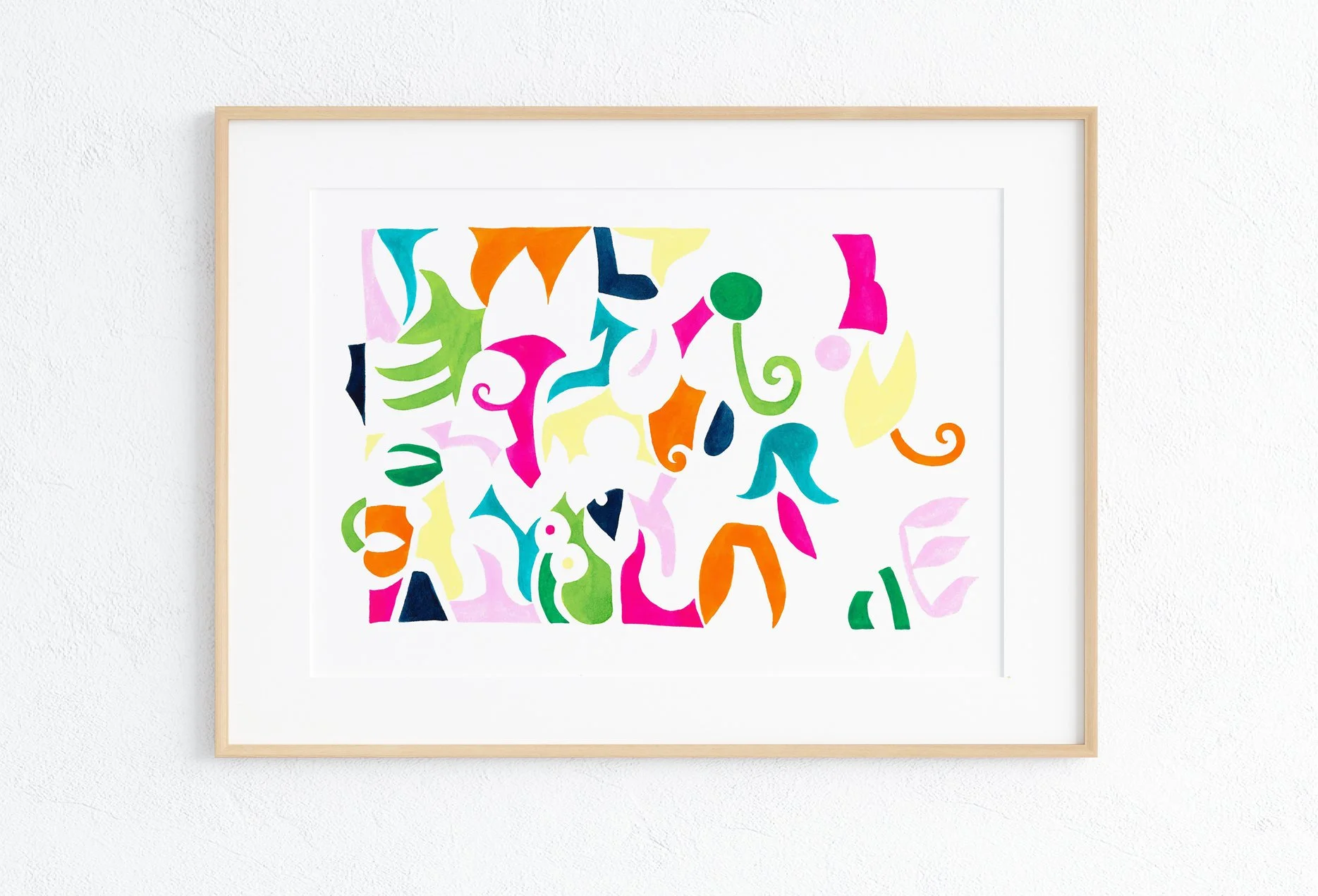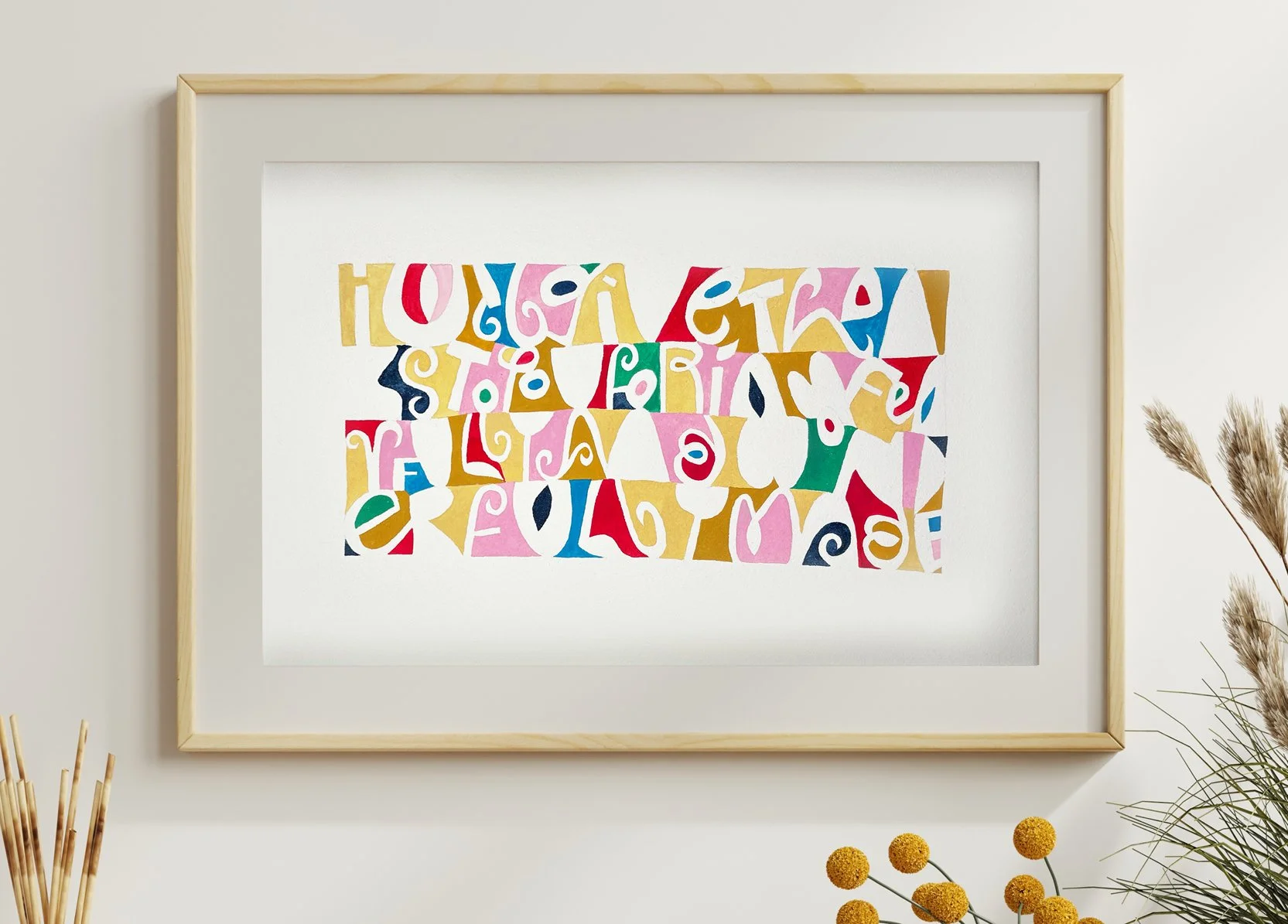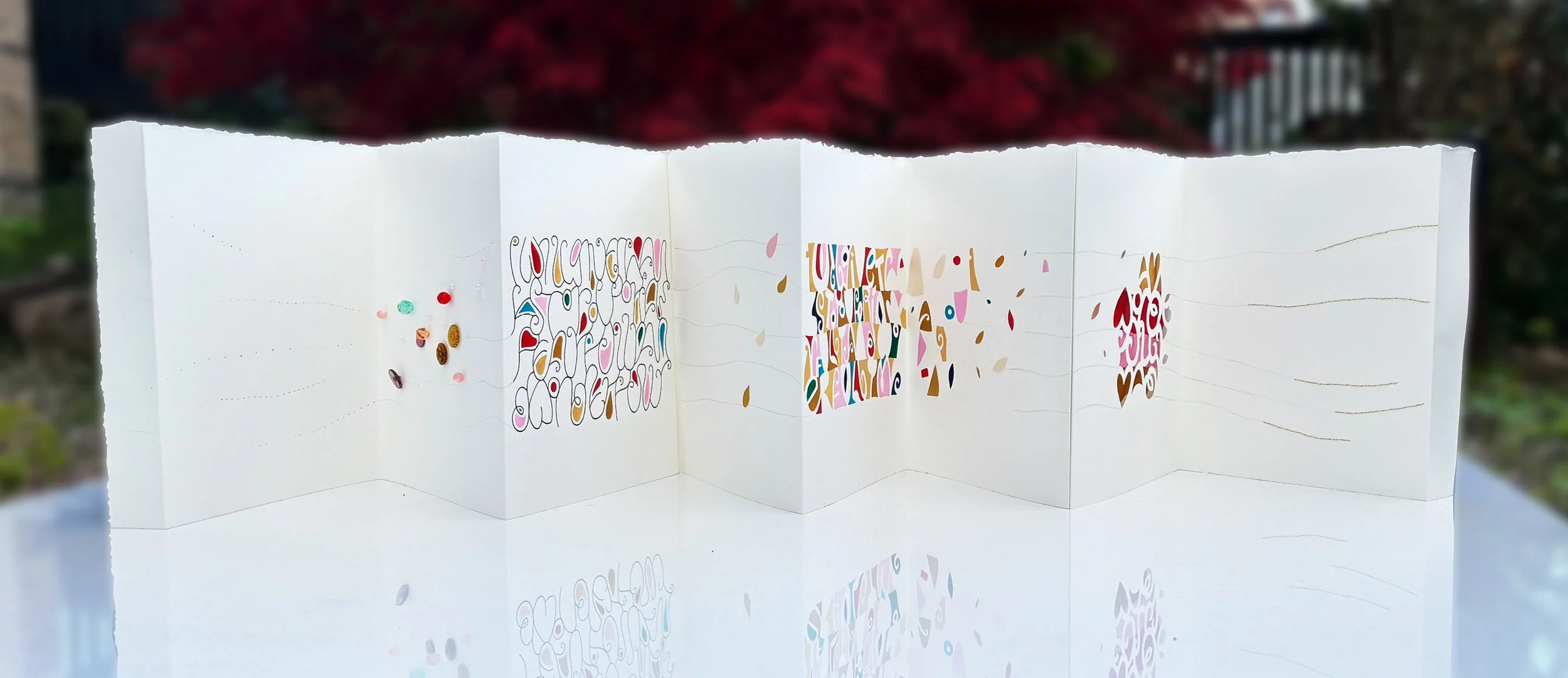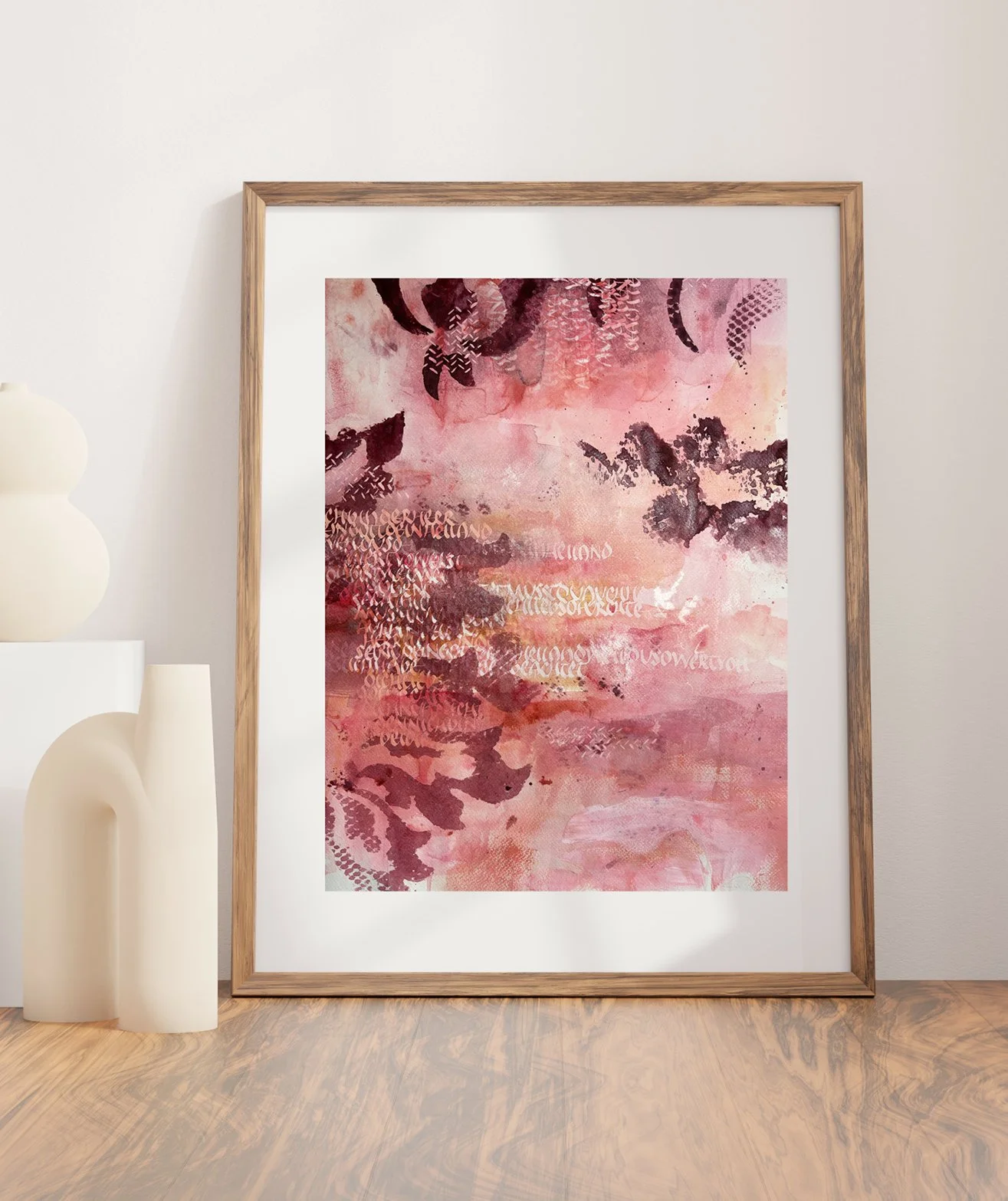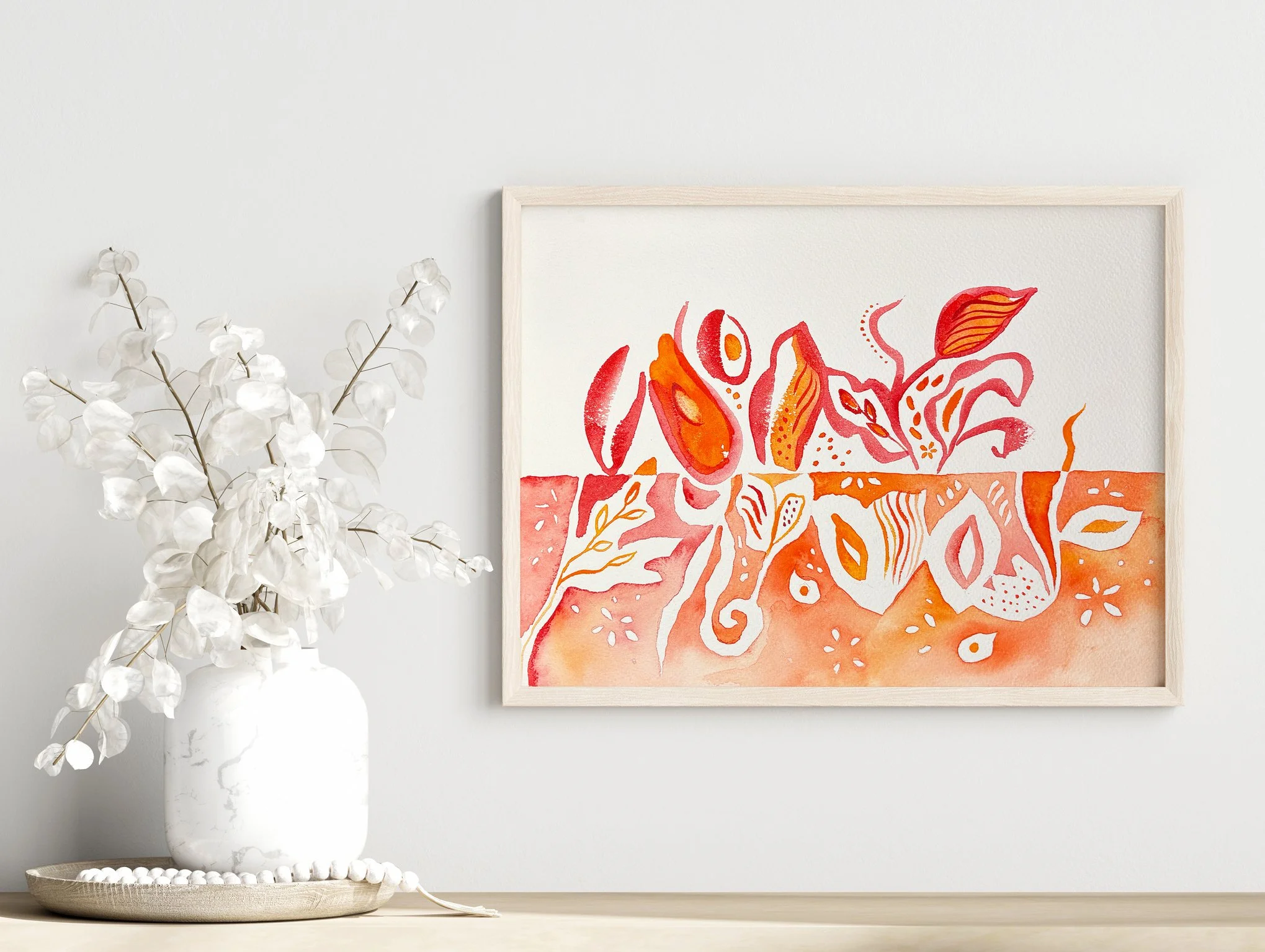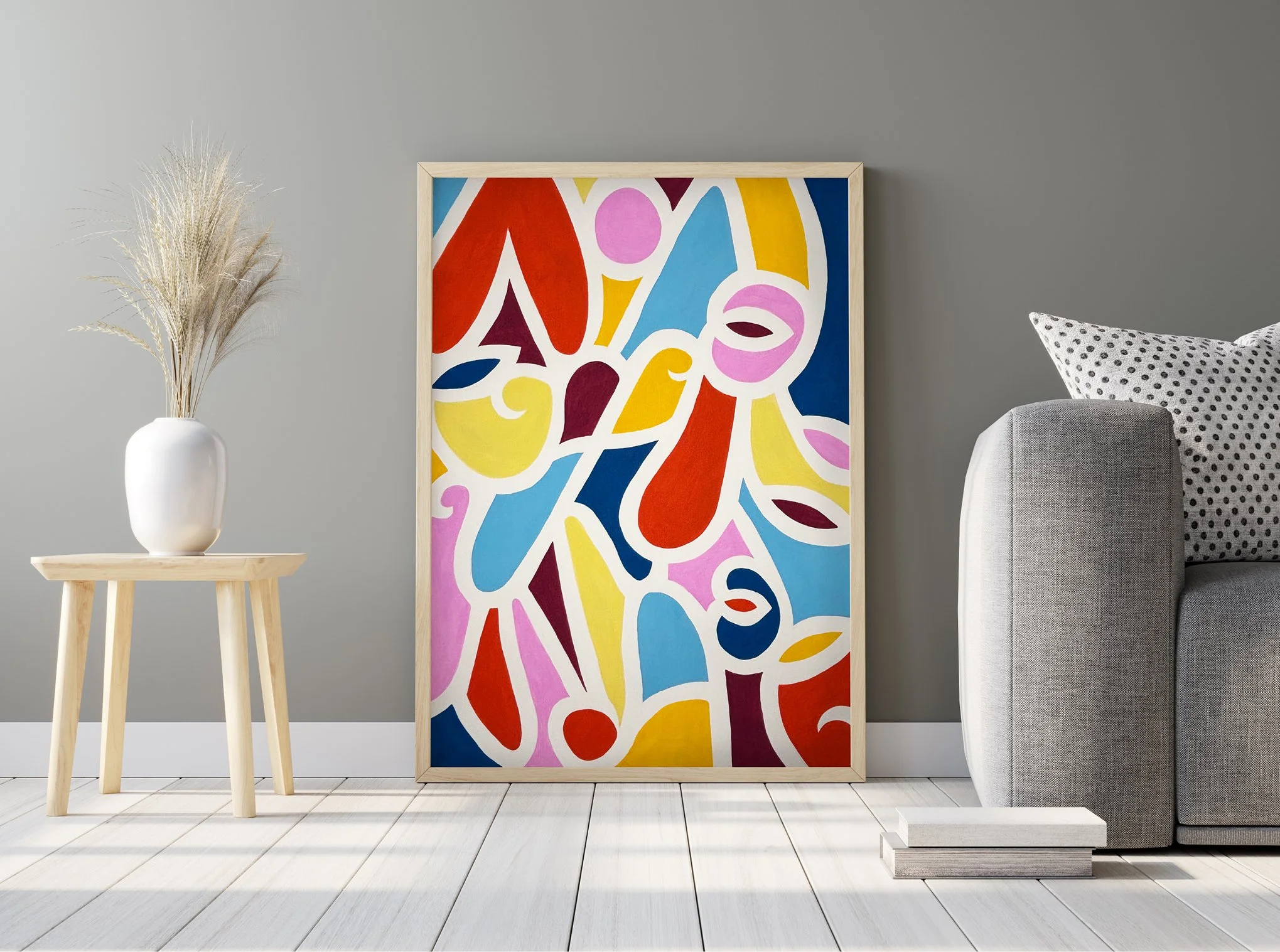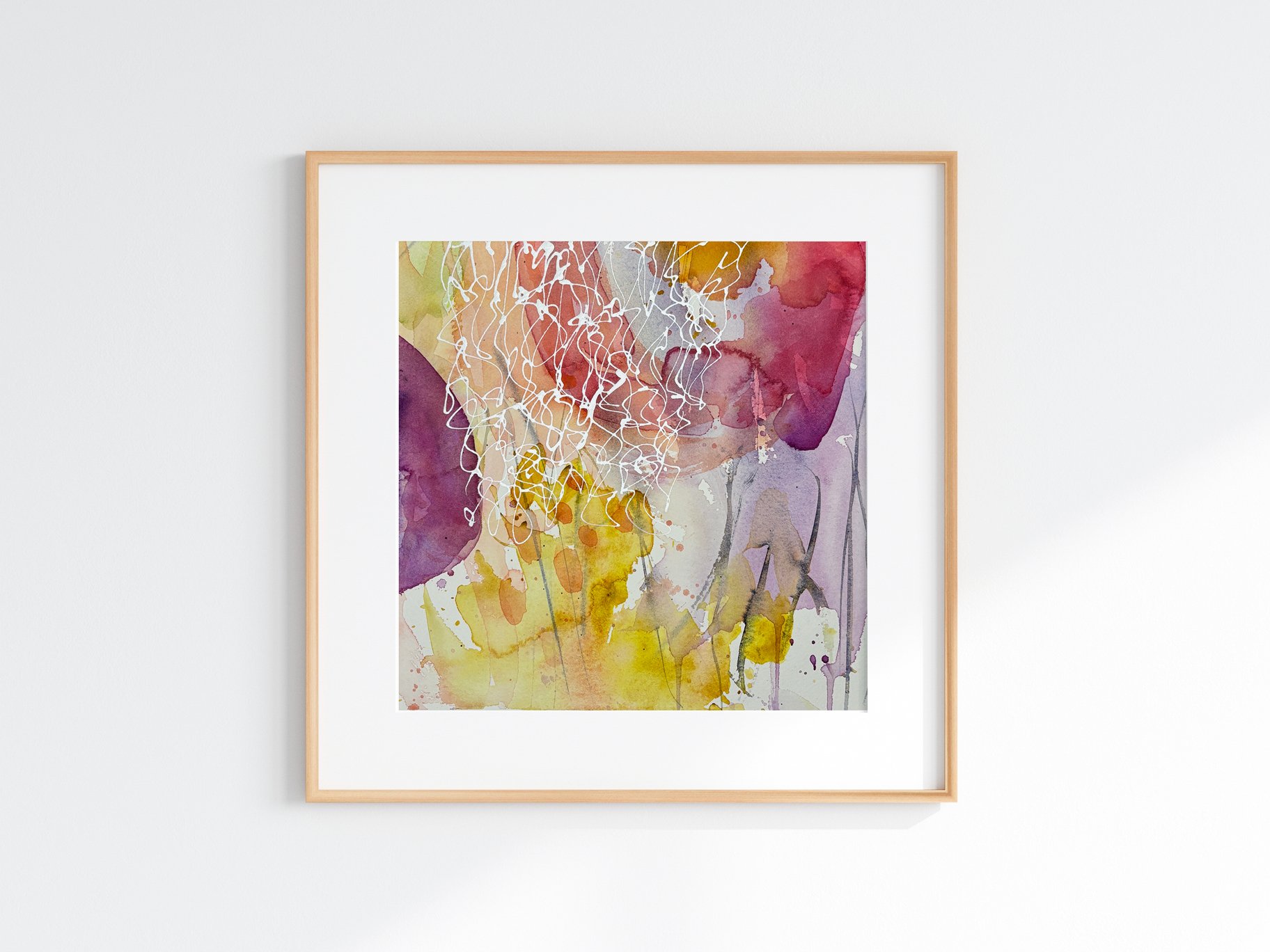
Merle Neumann
Merle Neumann is an artist, musician, and graphic designer based in Germany. She discovered calligraphy around the year 2000, embracing it as an art form that brings together soul, expression, and beauty. Since then, calligraphy has remained a meaningful part of her creative life, guiding her toward artistry rooted in intention and inspiration. Merle has continued to refine her skills through courses with international teachers, drawing motivation from the pursuit of her own authentic handwriting and artistic voice.
Artistic approach blending craftsmanship with heart, and design with faith
Interesting note from the artist
“I want to create art that shows the beauty and glory of God—art that touches people and leads them into an encounter with Jesus Christ.”
Works for Symbiosis V Exhibition
TITLE | Book of My Life
Hand-sewn, folded, written, and painted, this intricate artist’s book brings together paper, beads, buttons, and threads to form a tactile narrative. Colours and textures layer to express personal memories, moments of silence, and spiritual reflection, with a cross motif appearing as a quiet anchor and sign of grace and hope. The text is an acknowledgement that we are ‘Wonderfully made’ and carried by God's love.